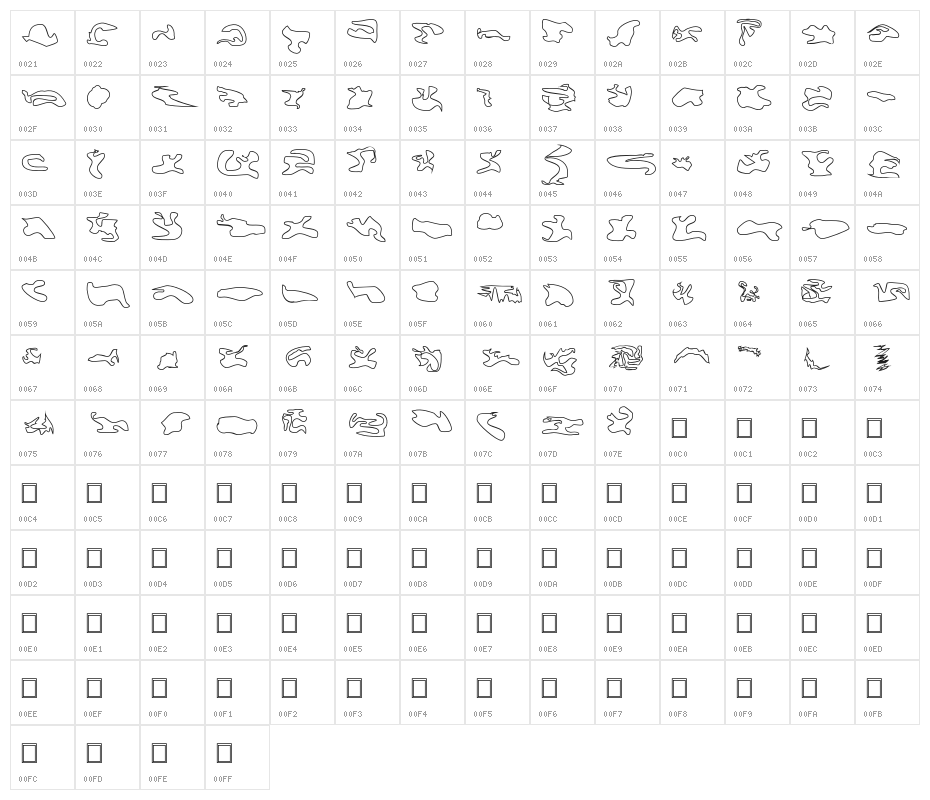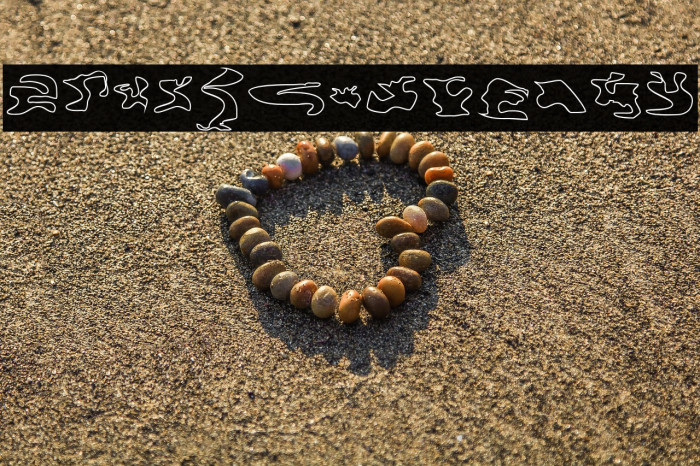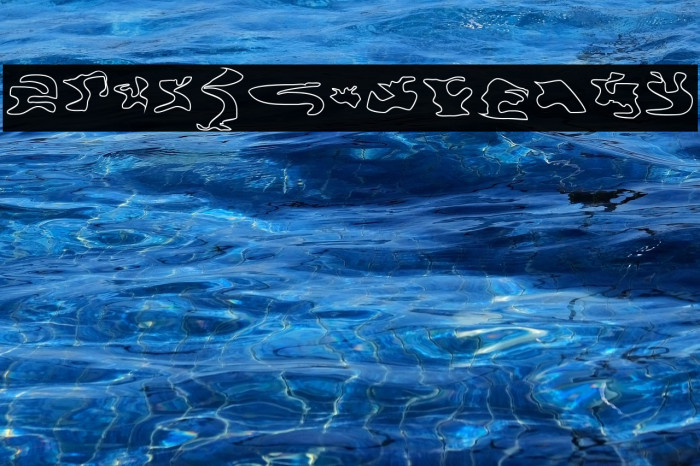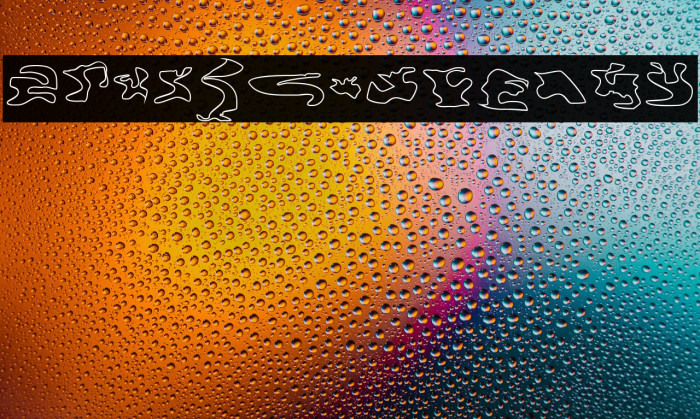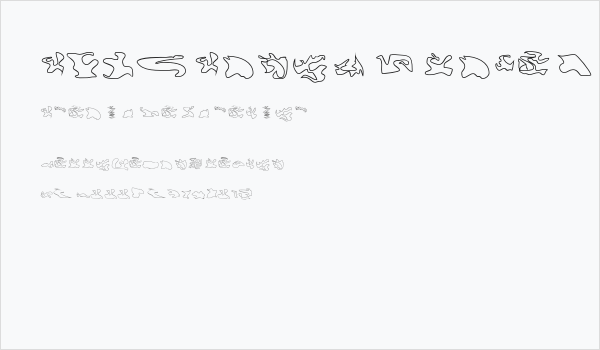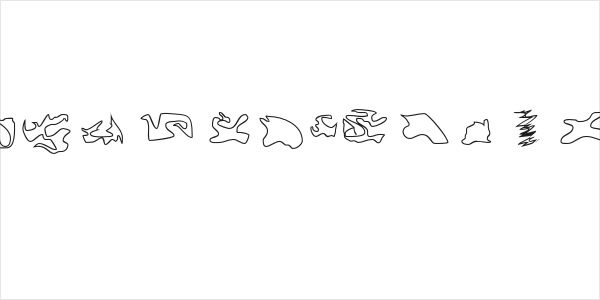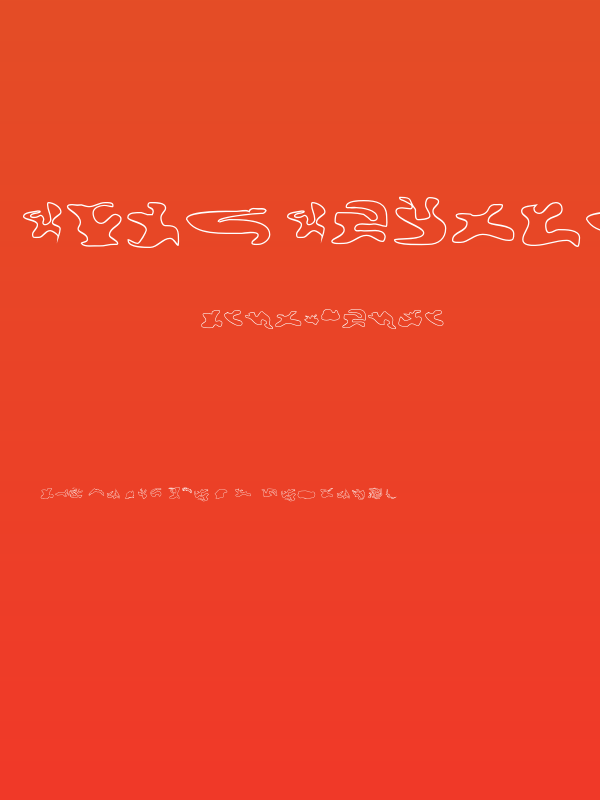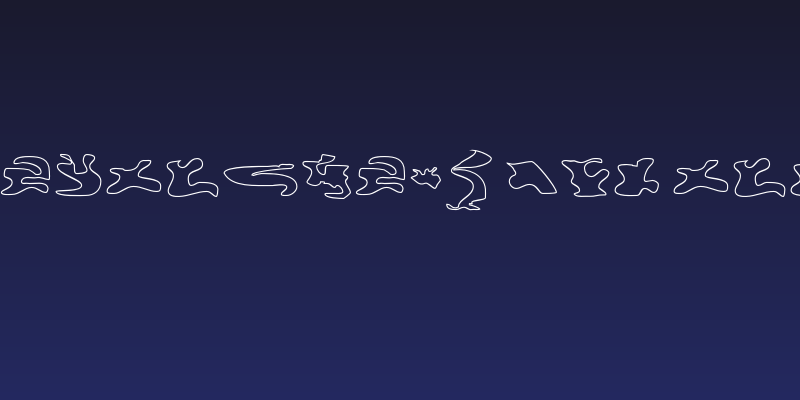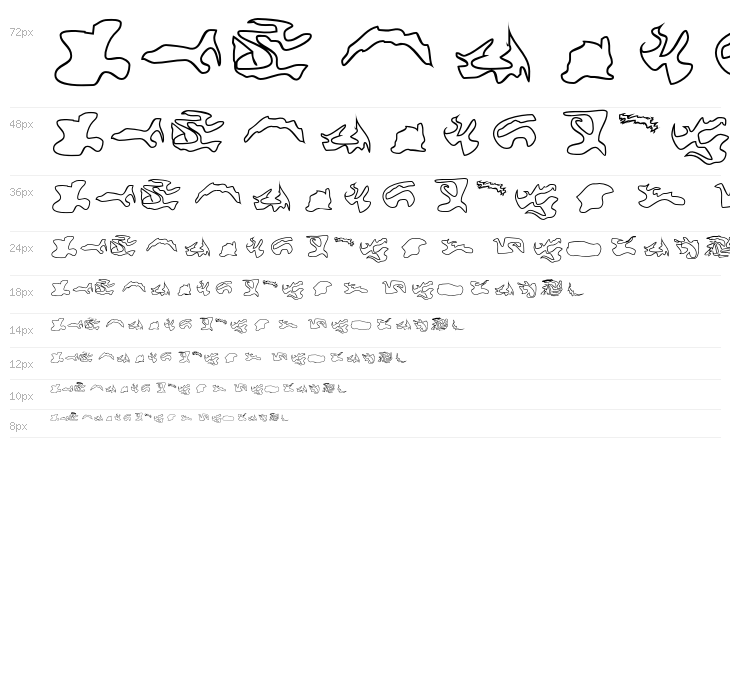
CISF Camouflage Kit Outline Font
CISF Camouflage Kit Outline Description
This font features an abstract, camouflage-inspired design with each character resembling an outline of organic, fluid shapes. The characters are highly stylized and lack traditional form, making them appear more like artistic symbols than standard letters or numbers. The overall appearance is chaotic and dynamic, with each glyph presenting a unique silhouette that contributes to a cohesive yet unpredictable aesthetic. This font is not intended for readability but rather for decorative purposes, offering a unique visual experience that can be used to create a sense of mystery or avant-garde style.
| Use Case | Logos, Art installations, Decorative elements |
| Proposed Projects | Ideal for artistic projects, abstract designs, or decorative elements in visual art pieces. |